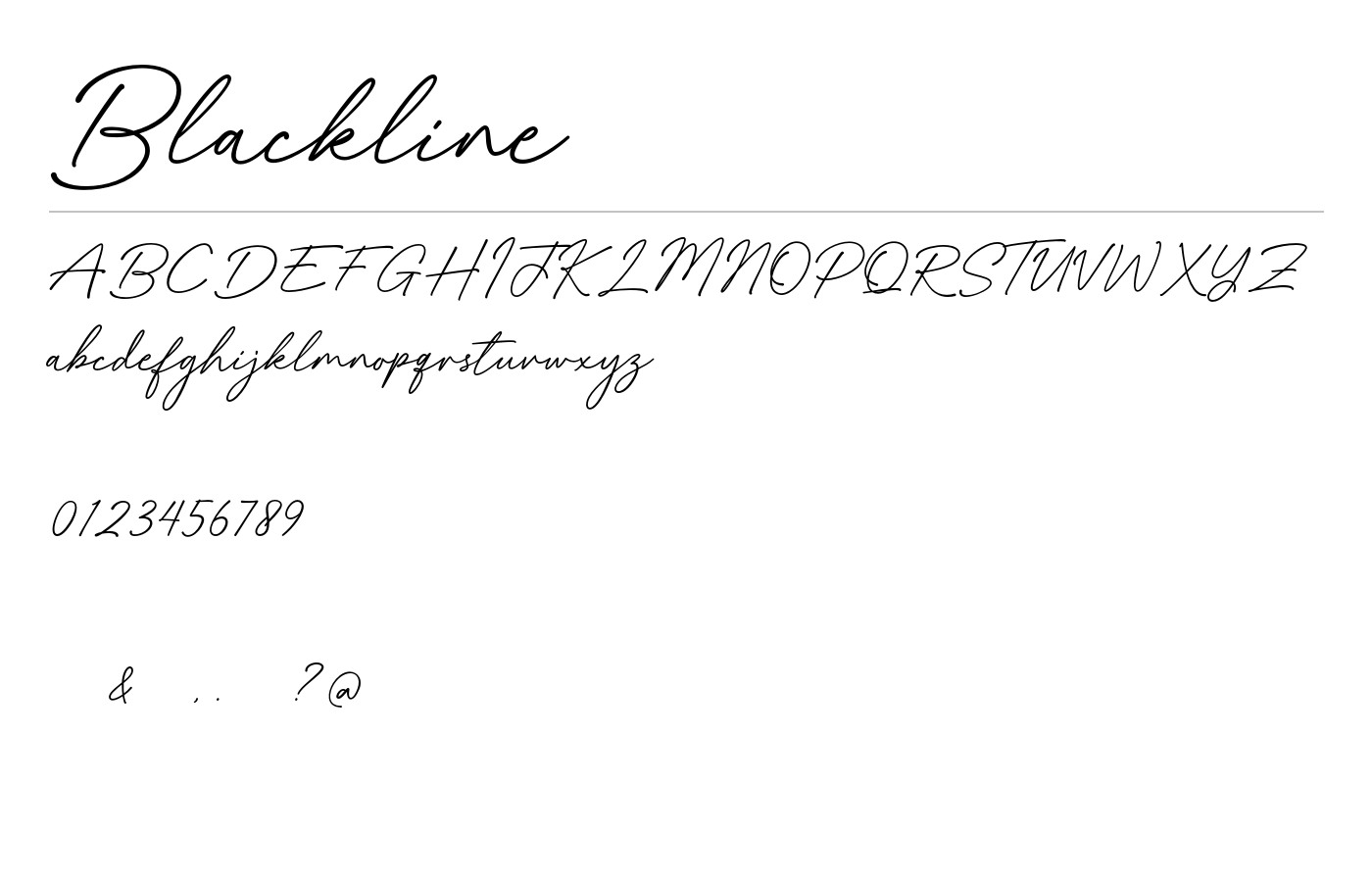
Blackline is a delicate and elegant script font characterized by its light weight and flowing, handwritten style. Its tall, slightly condensed letterforms with smooth, natural curves give it a refined yet approachable feel, making it ideal for invitations, branding, and editorial projects that seek a personal and sophisticated touch. This font works beautifully for designs that require a graceful, modern handwritten look without compromising readability.
Blackline Font
About Blackline Font
| Font family | Blackline Font |
| Designer | Iqbal Pauji |